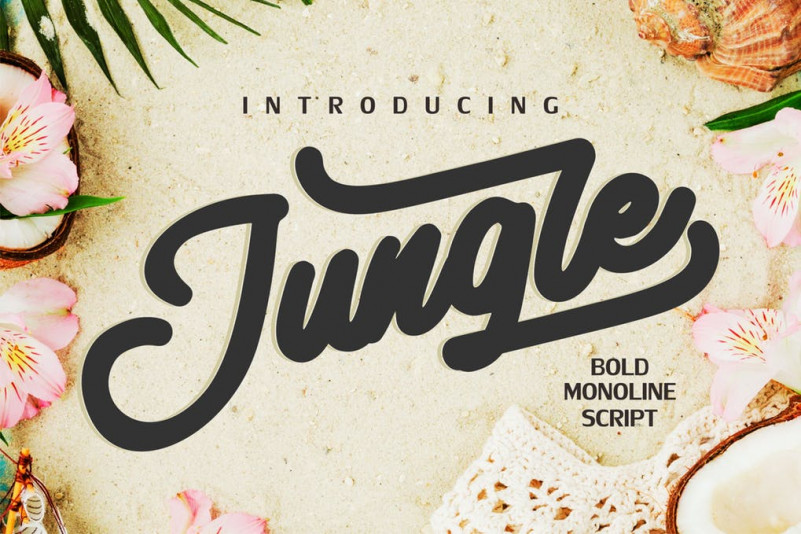
Jungle Monoline Bold Font
Jungle | Monoline Bold Script with a calligraphy style, So beautiful on invitation like greeting cards, branding materials, business cards, quotes, posters, and more!